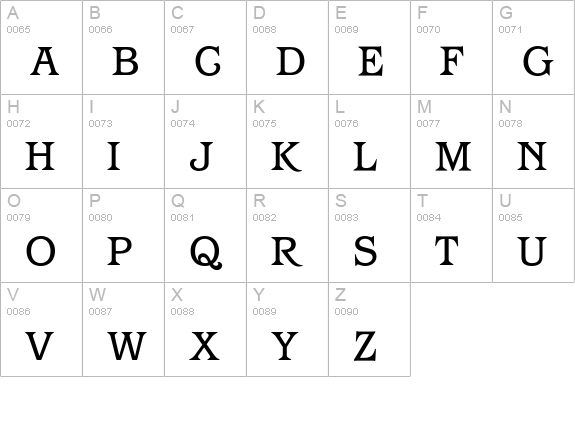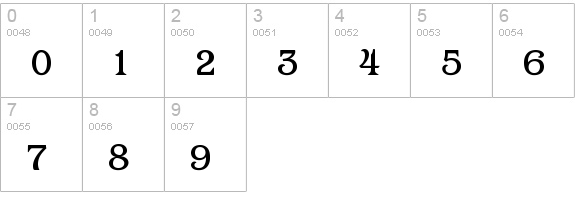
Barcelona* Expert Book SC is a comfortable, highly readable variant in the Barcelona* typeface family \xE2\x80\x94 well suited to long-form body text, articles, and editorial content.
Barcelona Expert Book SC font is a timeless and elegant typeface that exudes sophistication and style. With its classic serifs and clean lines, this font is perfect for adding a touch of refinement to any design project. Whether you're creating invitations, logos, or branding materials, Barcelona Expert Book SC font will elevate your work to the next level. The best part? Barcelona Expert Book SC font is free to download at FontsMarket.com. This means you can access this high-quality font without any cost, making it a valuable addition to your font library. Don't miss out on the opportunity to enhance your designs with the beauty and versatility of Barcelona Expert Book SC font. Download it today and see the difference it can make in your projects!